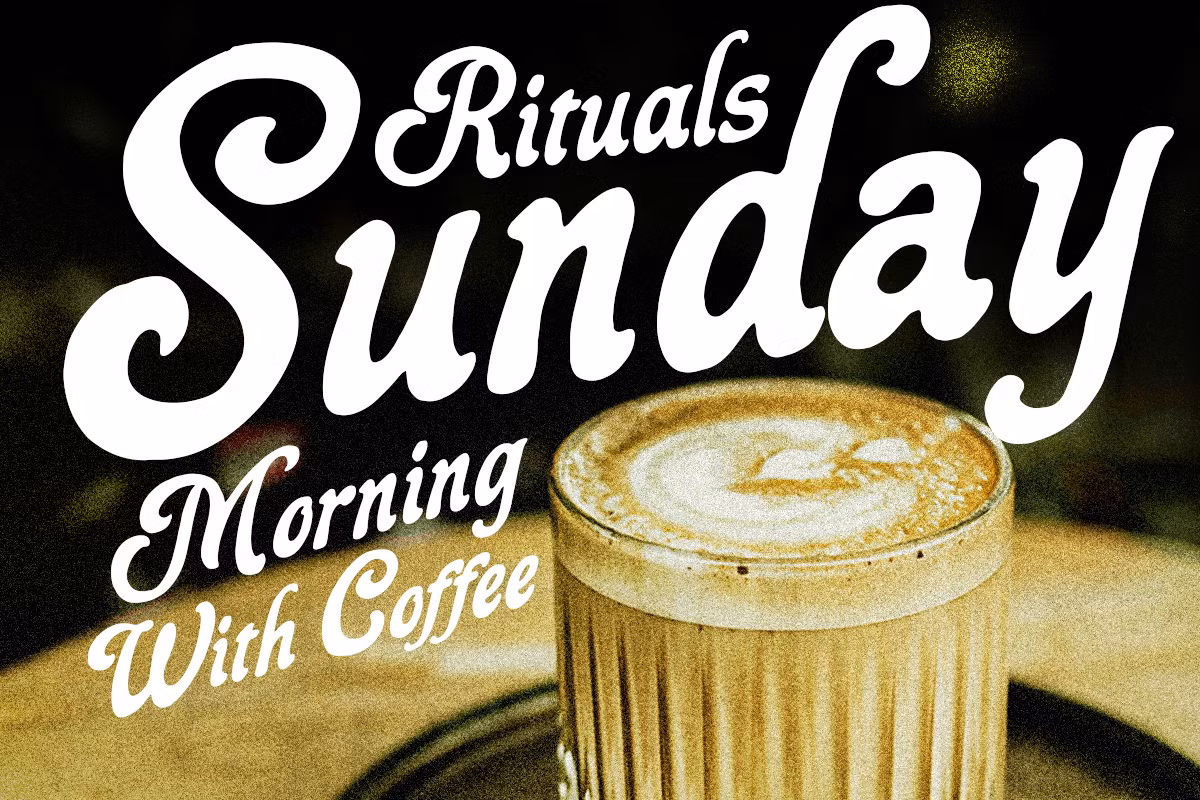
Miralona Stone Display: Versatile Vintage-Inspired Font Duo for Design
The Miralona Stone font is really something special – it’s like a perfect mix of old and new. You get a beautiful script font and a strong serif font all in one, which makes it super versatile for all sorts of design projects. Whether you’re creating a brand, designing packaging, or laying out a magazine, Miralona Stone has just the right amount of style and sophistication to make your work stand out. It’s a great way to add some elegance and personality to your designs, and it’s sure to make a lasting impression. With its unique blend of vintage charm and modern boldness, Miralona Stone is a great choice for anyone looking to add a little extra something to their creative work.
Miralona Stone has a classic look that’s both old and new at the same time. Its script style is fancy and flowing, like it was made by hand. This makes it perfect for projects that want to add a personal or handmade feel. The serif font, on the other hand, is strong and bold, meant to grab attention and show power. When you put these two styles together, they create an interesting contrast that makes your designs more visually appealing. The combination is great for adding a touch of nostalgia and sophistication to your work. With its unique blend of vintage and modern elements, Miralona Stone is a great choice for anyone looking to add some personality to their designs.
Script Font Characteristics
The Miralona Stone script is really great for giving your projects a bit of a fancy and playful feel. With its beautiful, curvy lines and flourishes, it can make things like invitations, cards, and logos look really classy and elegant. This style is all about movement and flow, which makes it perfect for designs where you want to express emotions and personality. It’s a great way to add some extra flair and make your work stand out. Whether you’re working on a special occasion card or just want to give your brand a unique touch, the Miralona Stone script is a great choice. Its whimsical feel can really bring a design to life and make it feel more personal and expressive.
Serif Font Characteristics
The Miralona Stone duo’s serif typeface is really good at giving text a strong foundation, which is perfect for headlines and important information that needs to stand out. Because it has bold and sturdy lines, it’s easy to read, no matter how big or small it is, making it a great choice for things like logos, packaging, and editorial designs. The classic touch from the serif elements adds a level of sophistication, so your message comes across as authoritative and stylish.
Character Sets and Features
Miralona Stone has a really impressive set of characters. The font package comes with a wide range of features, including:
- Uppercase and lowercase letters
- Numbers and punctuation
- Alternates and ligatures for enhanced creativity
- Multilingual support to cater to a global audience
Use Cases for Miralona Stone
The Miralona Stone is really good for lots of things. It can be used in many different ways, which is pretty cool. Let’s take a look at some examples of how it can be used.
- Branding Projects: Use the duo to create memorable logos that resonate with your target audience. The contrast between the script and serif styles can help establish a brand identity that feels both modern and timeless.
- Packaging Design: Whether for food products, cosmetics, or artisanal goods, Miralona Stone can enhance packaging with its charming aesthetic, appealing to consumers’ desire for quality and craftsmanship.
- Event Invitations: The flowing script style is perfect for wedding invitations, announcements, and other social events, where a personal touch is essential.
To maximize the impact of your designs, consider pairing Miralona Stone with complementary fonts. Here are some suggestions:
- Sans-serif Fonts: Pair the script with a clean, modern sans-serif font like Montserrat or Open Sans for a contemporary look that balances elegance with minimalism.
- Classic Look: Pair serif fonts with other traditional ones like Playfair Display, which gives a really vintage feel.
- Handwritten Fonts: Combine the script with another handwritten font like Pacifico or Dancing Script, creating a playful and inviting tone.
You can try out different pairings to see what works best for you, and this can lead to some really interesting results, helping you find the perfect fit for your design.
Miralona Stone is a great font that mixes old and new styles. It has a bold script and a strong serif font that can be used in many different projects, like making brands, packages, and editorials look good. The font has a lot of characters and nice details, making it very useful for designers. Whether you’re working on a personal project or a professional one, Miralona Stone helps your work stand out and look good. It’s a good addition to any designer’s collection of tools. You can use it to make your work look confident and stylish.